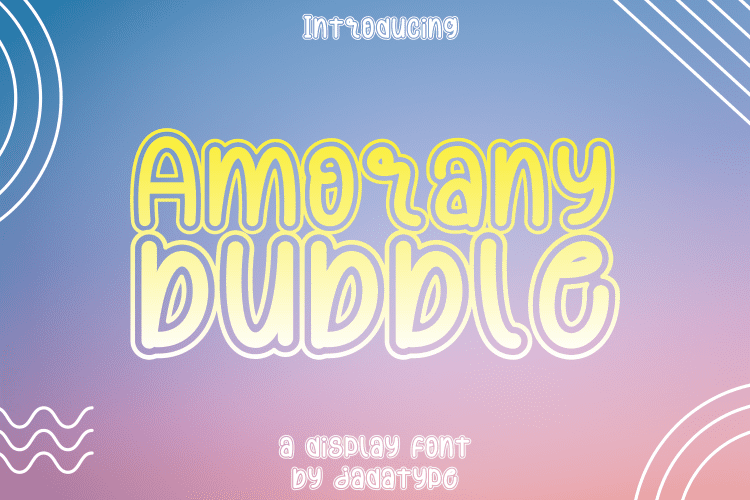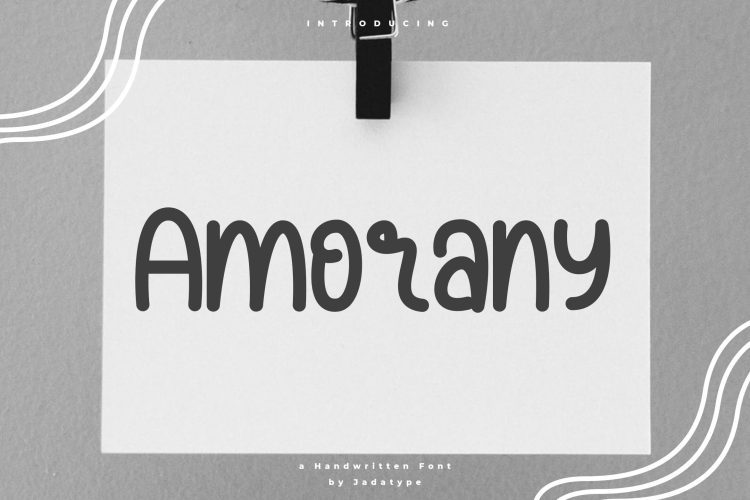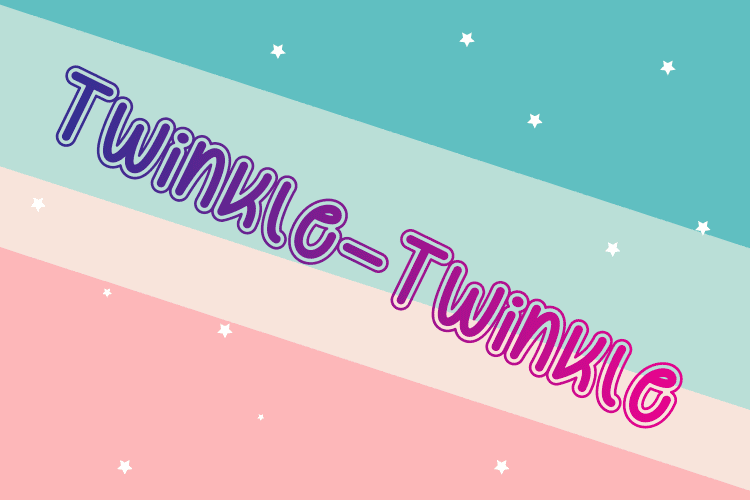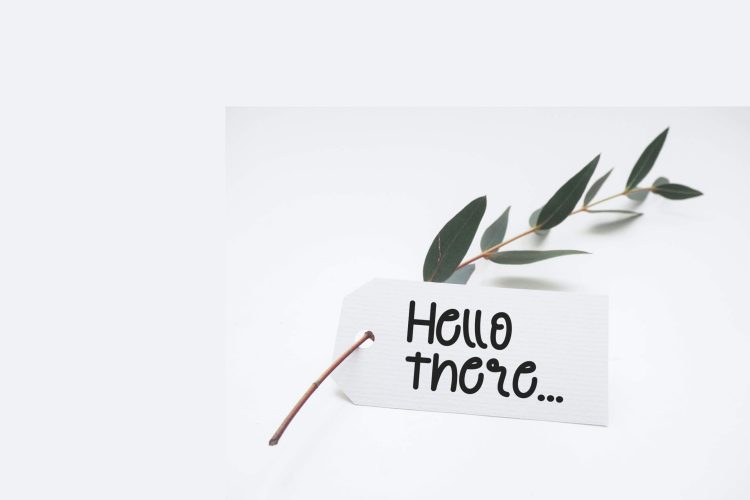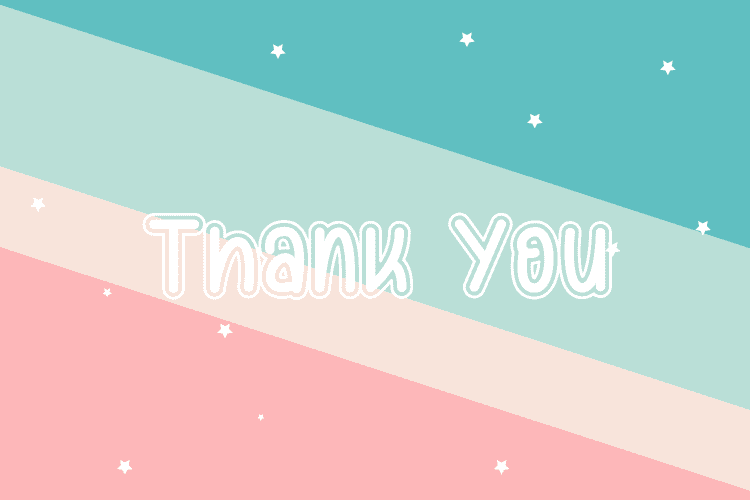
Amorany is a two font style that comes with handwriting font with monoline lines and the bubble style. It gives the impression of being natural, simple, friendly, and comfortable to see. and it can be used for your designs, social media, print writing, crafts, and others